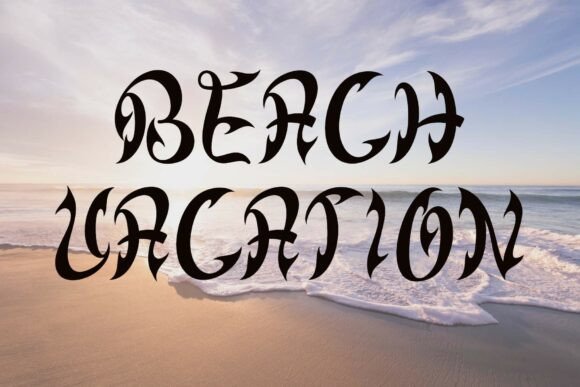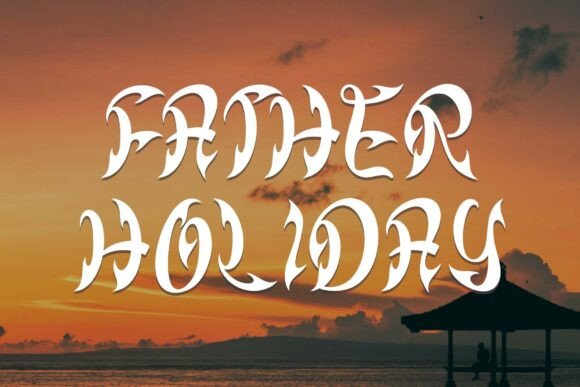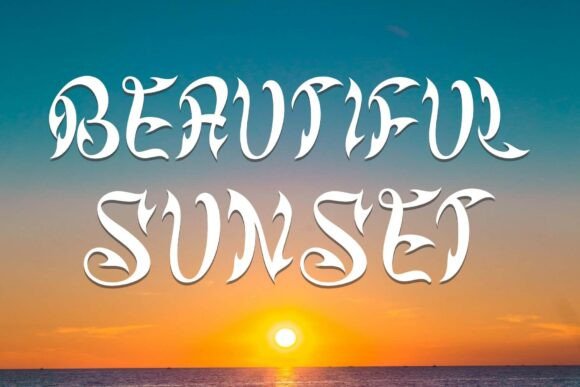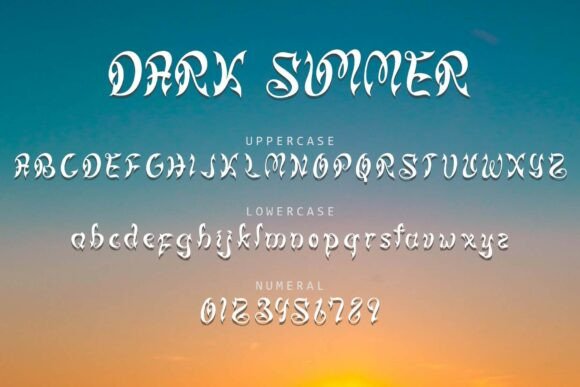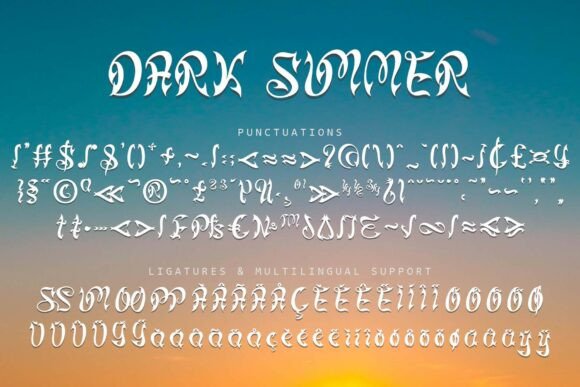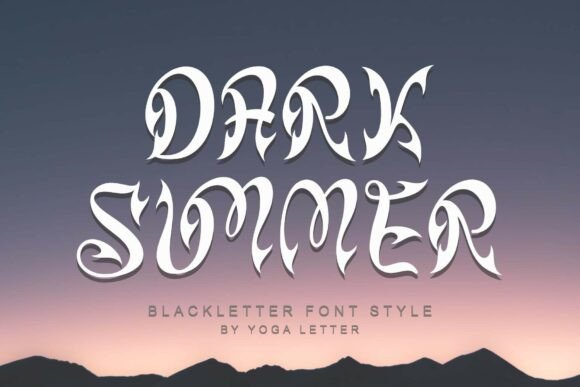
Introducing Dark Summer Font: The Ultimate Elegance for Your Designs
Are you looking for a font that exudes elegance and sophistication for your summer designs? Look no further than the Dark Summer Font, a unique and stylish blackletter font that’s perfect for creating stunning visuals. In this article, we’ll dive into the features and benefits of this incredible font, and explore how it can elevate your designs for various occasions.
What is Dark Summer Font?
Dark Summer Font is a beautifully crafted blackletter font that’s designed to add a touch of elegance to your designs. With its intricate and ornate details, this font is sure to make your text stand out. Whether you’re creating a summer banner, poster, or print, Dark Summer Font is the perfect choice.
Key Features of Dark Summer Font
- Uppercase and Lowercase Letters: Dark Summer Font comes with both uppercase and lowercase letters, allowing you to create a wide range of designs.
- Ligatures: The font includes ligatures, which are special characters that combine two or more letters to create a single glyph. This feature adds an extra layer of elegance to your text.
- Numerals and Punctuations: Dark Summer Font also includes numerals and punctuations, making it a comprehensive font for all your design needs.
- Multilingual Support: This font supports multiple languages, making it a great choice for designers who work with international clients.
Perfect for Various Occasions
Dark Summer Font is not just limited to summer designs. Its versatility makes it suitable for various occasions, including:
- Summer: Create stunning summer banners, posters, and prints with Dark Summer Font.
- Halloween: Add a touch of spookiness to your Halloween designs with this elegant font.
- Christmas: Use Dark Summer Font to create beautiful Christmas cards, posters, and prints.
- Father’s Day: Show your appreciation for dad with a thoughtful design featuring Dark Summer Font.
- 4th of July: Celebrate Independence Day with a patriotic design that incorporates Dark Summer Font.
Why Choose Dark Summer Font?
So, why should you choose Dark Summer Font for your designs? Here are just a few reasons:
- Unique and Elegant: Dark Summer Font is a one-of-a-kind font that adds a touch of elegance to your designs.
- High-Quality: This font is crafted with attention to detail, ensuring that your designs look professional and polished.
- Versatile: Dark Summer Font can be used for a wide range of designs, from summer banners to Halloween posters.
Tips for Using Dark Summer Font
Here are some tips for getting the most out of Dark Summer Font:
- Experiment with Sizes: Try using Dark Summer Font in different sizes to create visual interest.
- Combine with Other Fonts: Pair Dark Summer Font with other fonts to create a unique and eye-catching design.
- Use Ligatures: Take advantage of the ligatures feature to add an extra layer of elegance to your text.